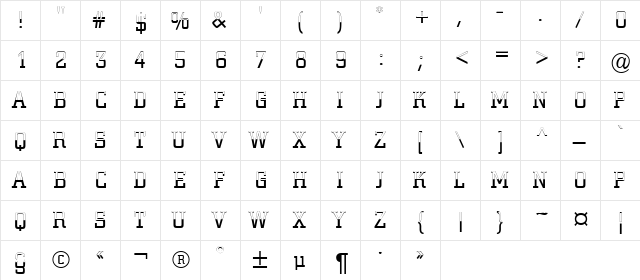
a_CityNovaTitulB&WLt Regular
Design Context for a_CityNovaTitulB&WLt Typeface
a_CityNovaTitulB&WLt offers clean, dependable letterforms without strong stylistic allegiance, making it a practical choice for designers who need flexibility.